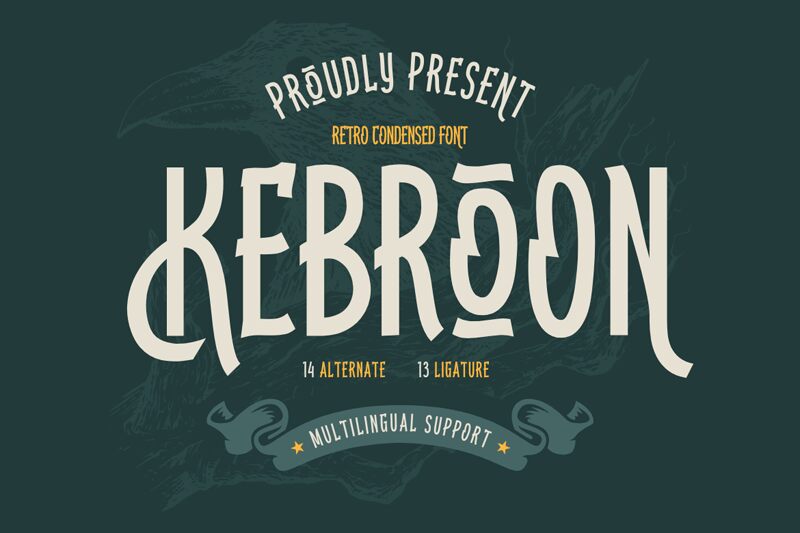
KEBROONtrial Regular
Kebroon is a captivating display font designed by Twinletter. Its retro-inspired aesthetic and condensed width create a bold, eye-catching presence that evokes a sense of vintage charm and industrial grit. The sharp, angular letterforms and uneven stroke widths lend the font a unique, handcrafted feel, while the overall aesthetic exudes an air of rugged, urban sophistication.
This versatile font shines in a variety of design applications, from editorial layouts and branding materials to packaging and signage. Its condensed width makes it a practical choice for projects where space is limited, allowing designers to make a strong, impactful statement without sacrificing legibility or visual balance.